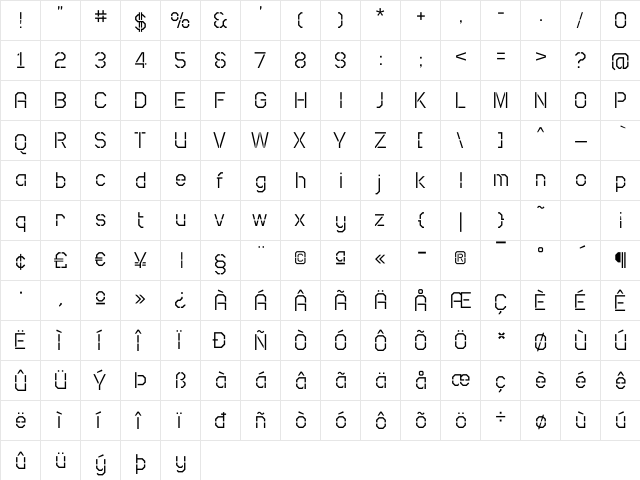
Camo SansLight Regular
Design Context for Camo SansLight Typeface
Camo SansLight offers clean, dependable letterforms without strong stylistic allegiance, making it a practical choice for designers who need flexibility. Its slender proportions lend an understated elegance to any composition.
Pro Tip: Use Camo SansLight in both headline and body roles to test its range before committing to a single application.